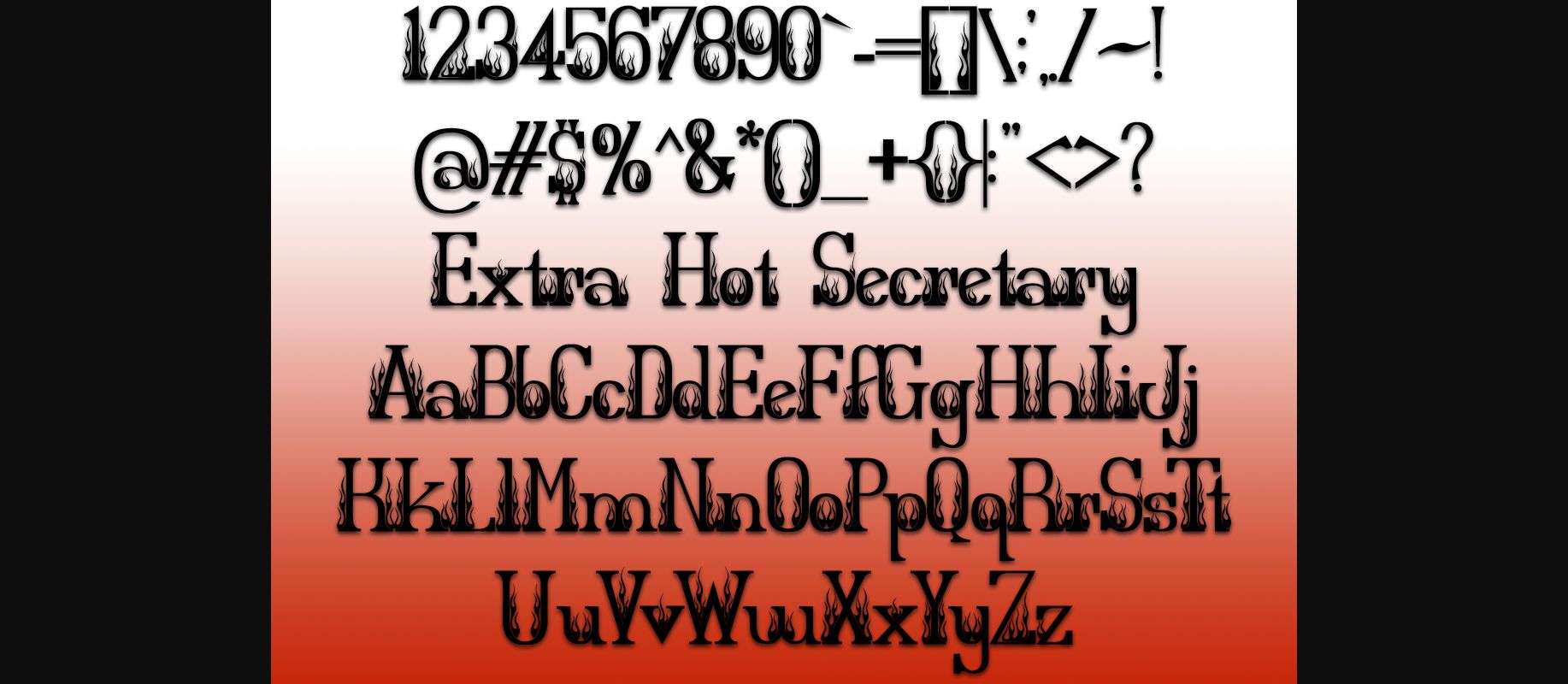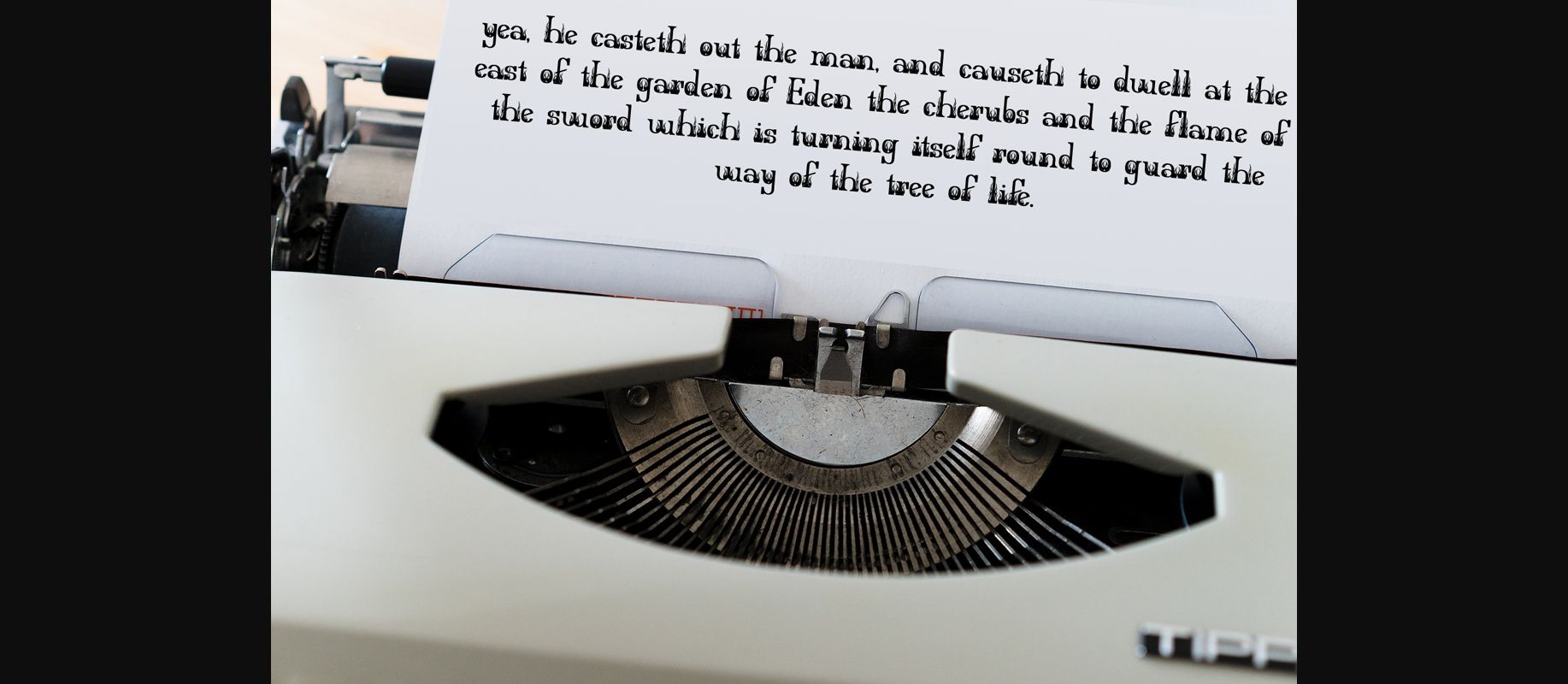
Extra Hot Secretary Font
About Extra Hot Secretary Font
Extra Hot Secretary is a unique and interesting decorative font, featuring flame ornaments. Add this font to your creative ideas and notice how it will make them stand out!